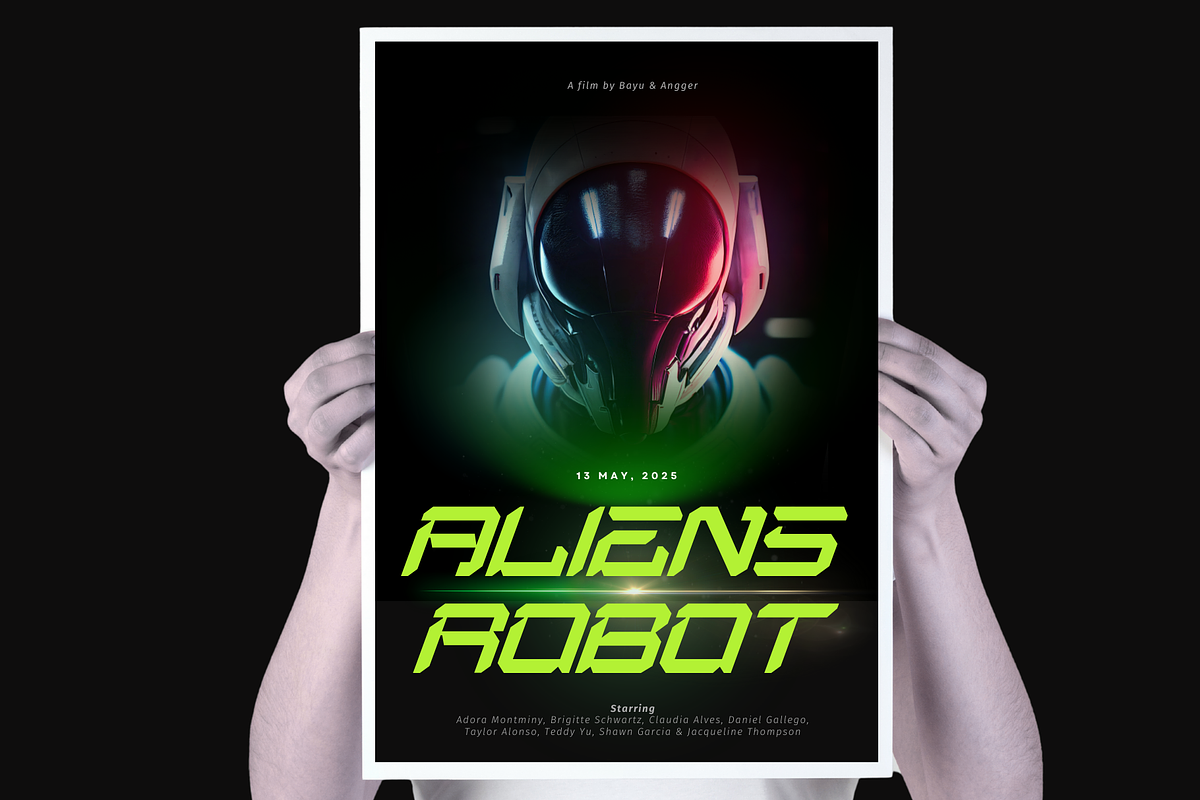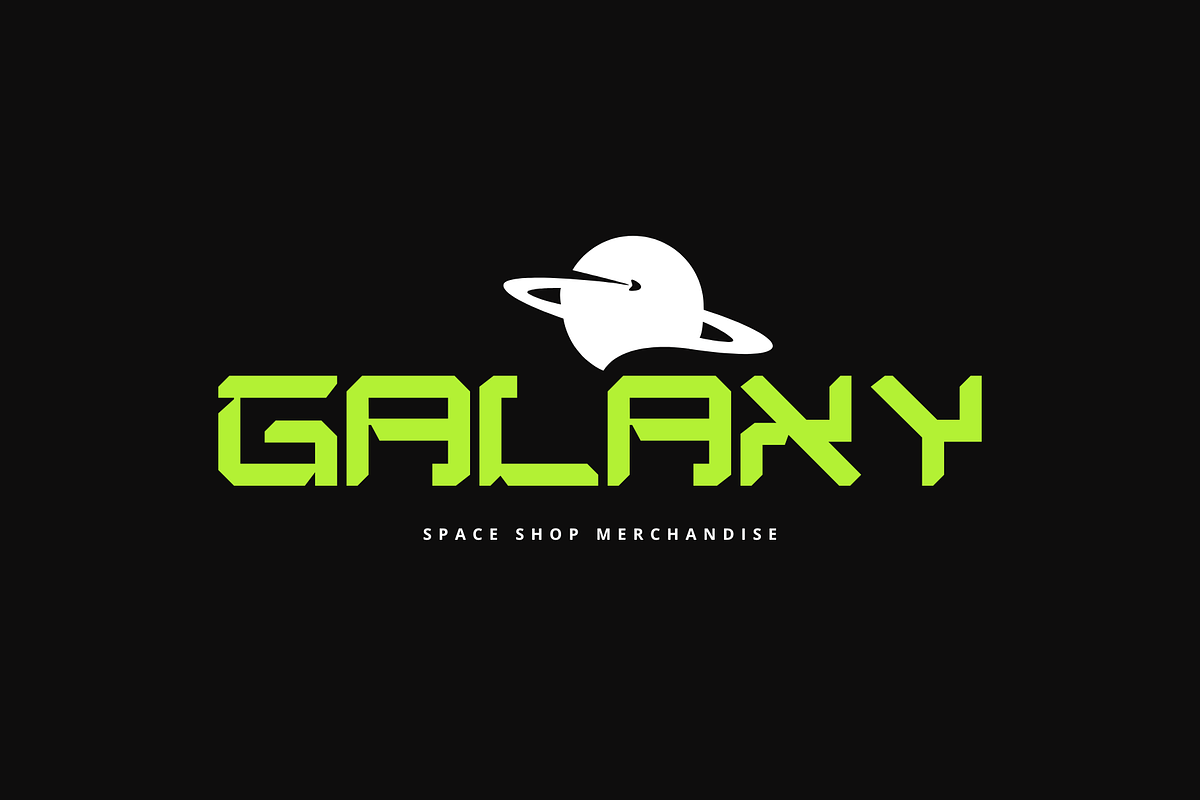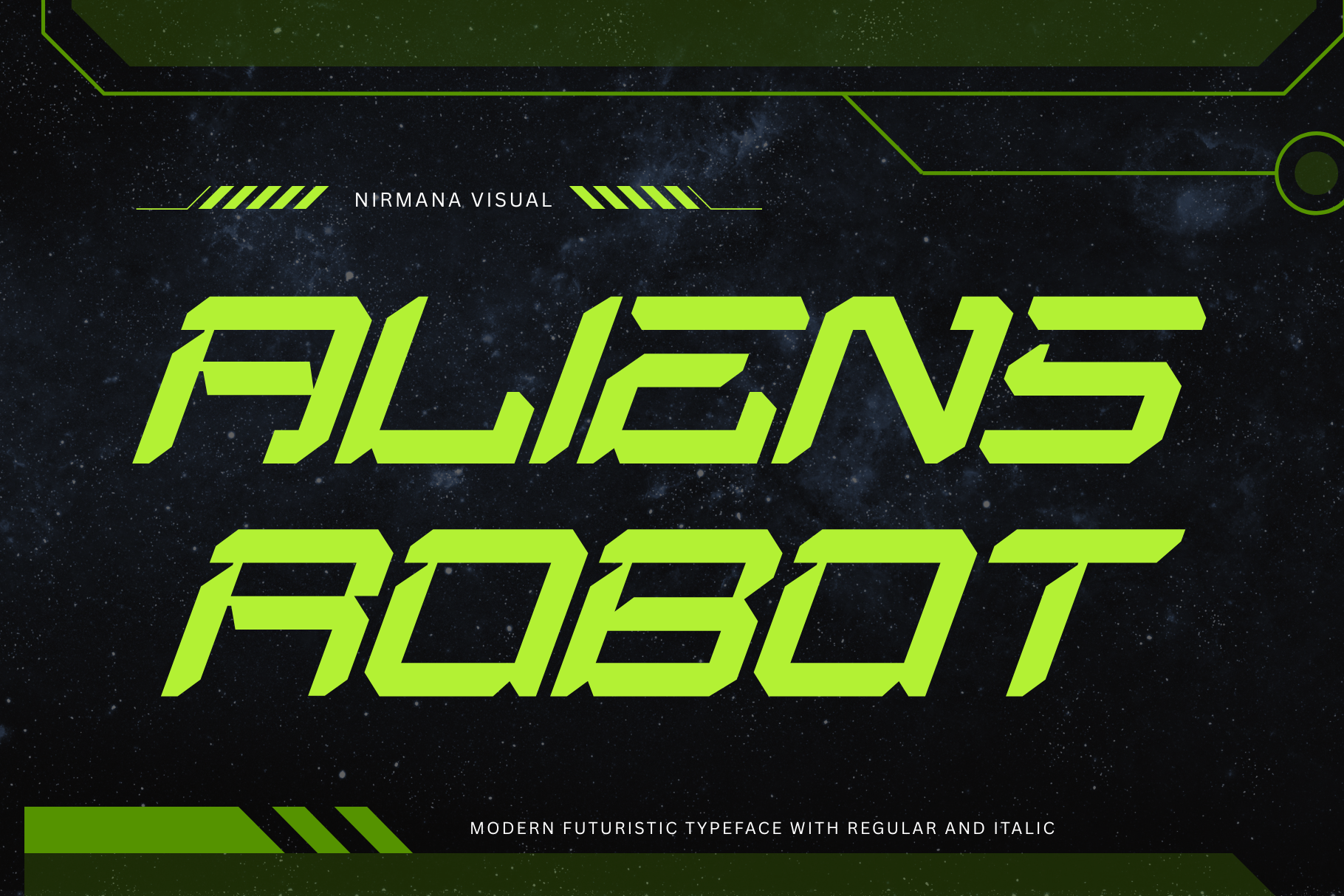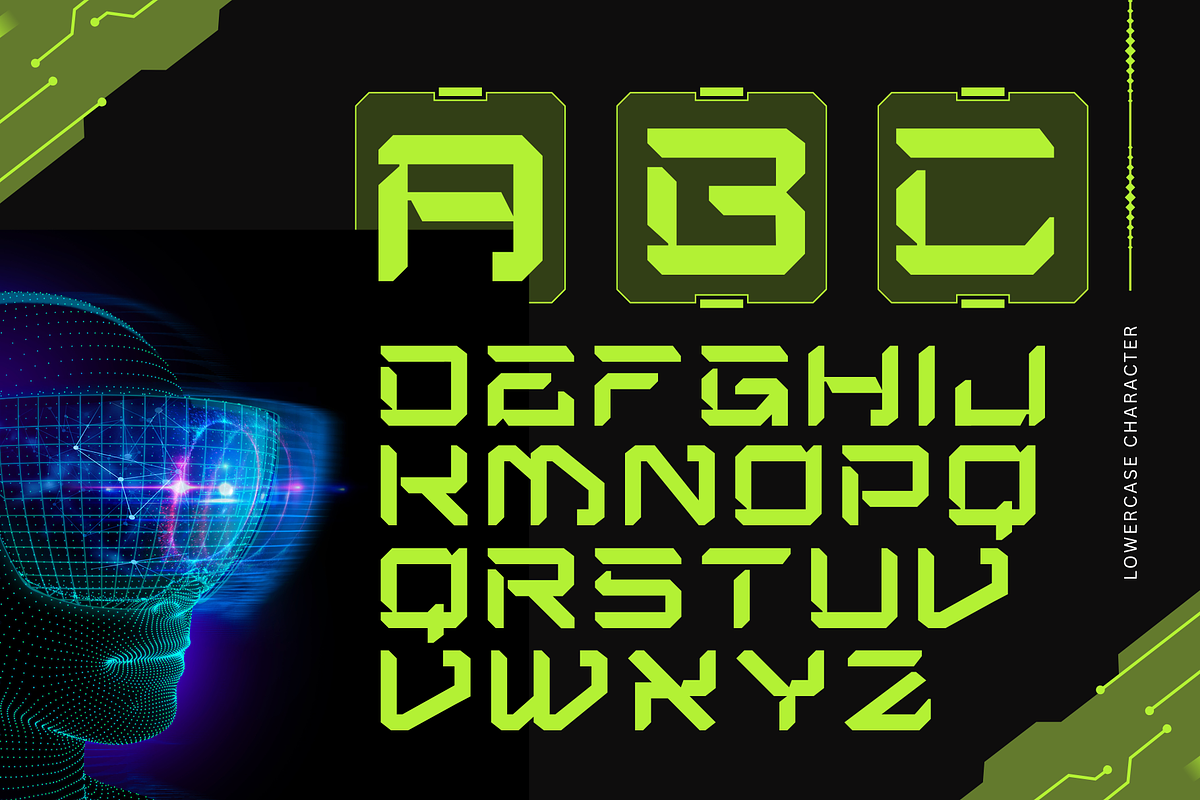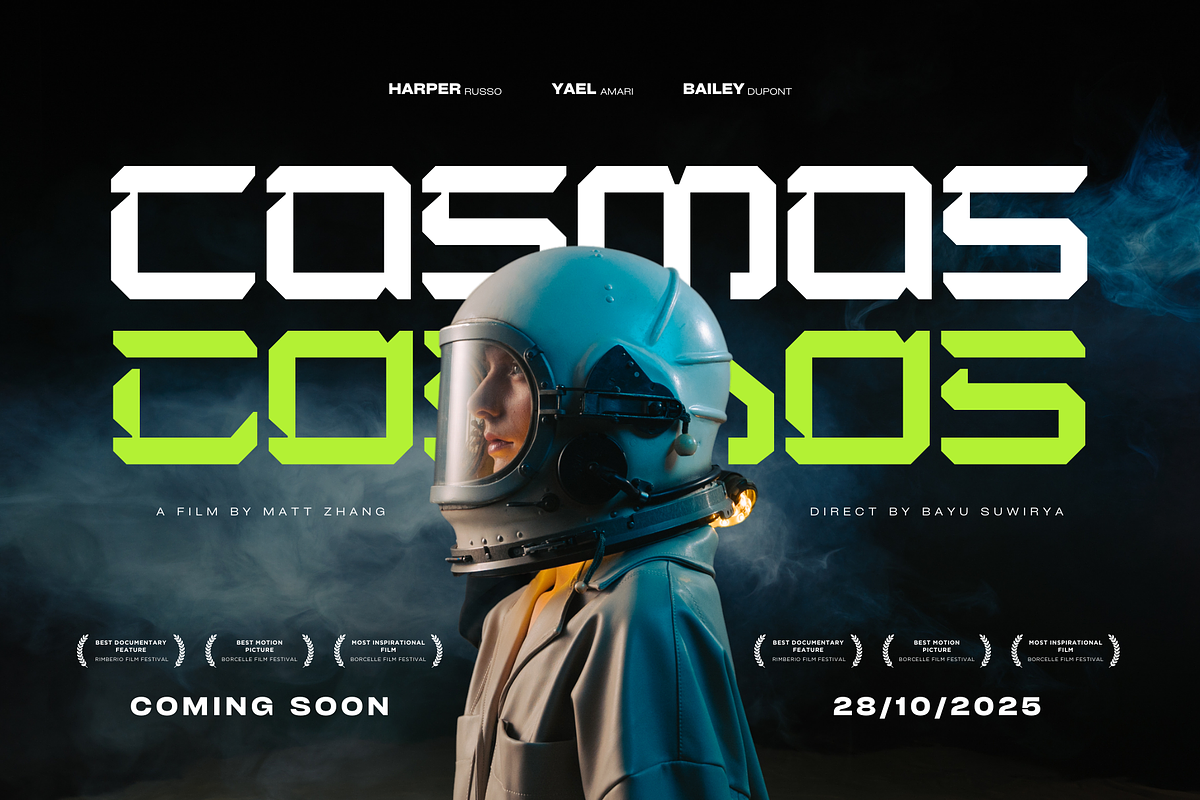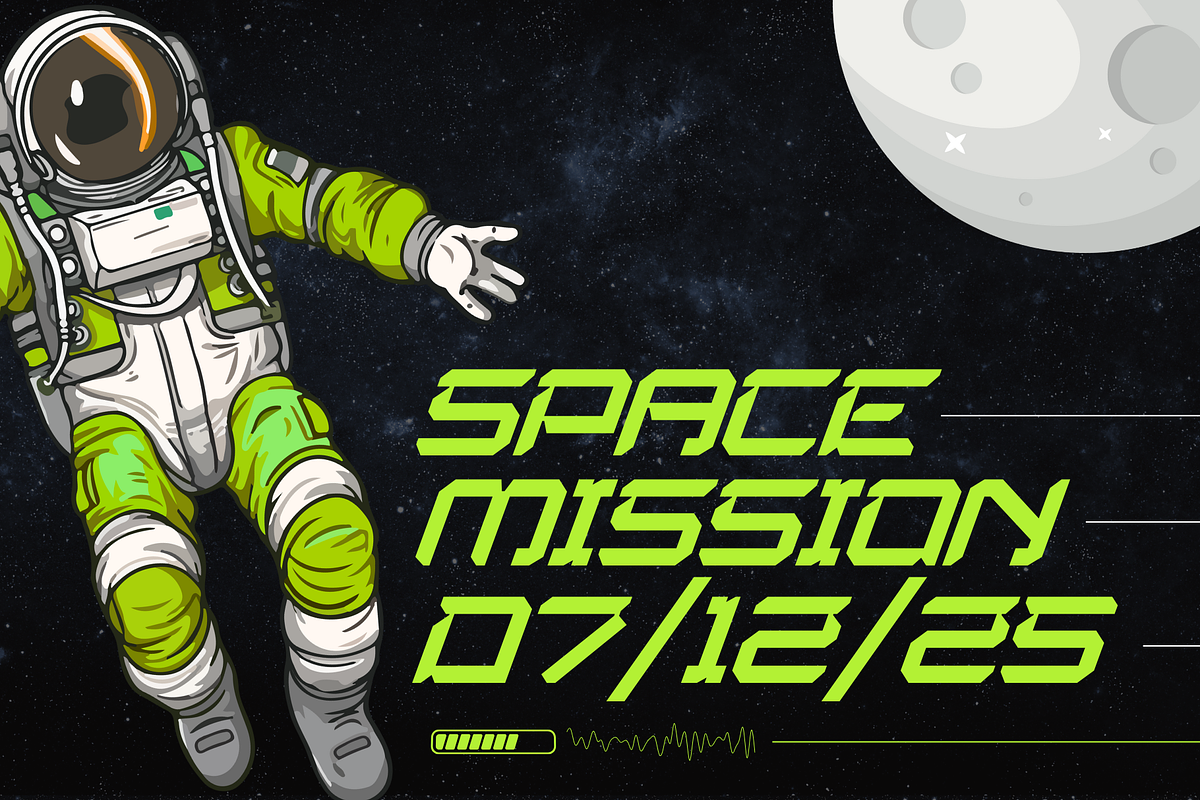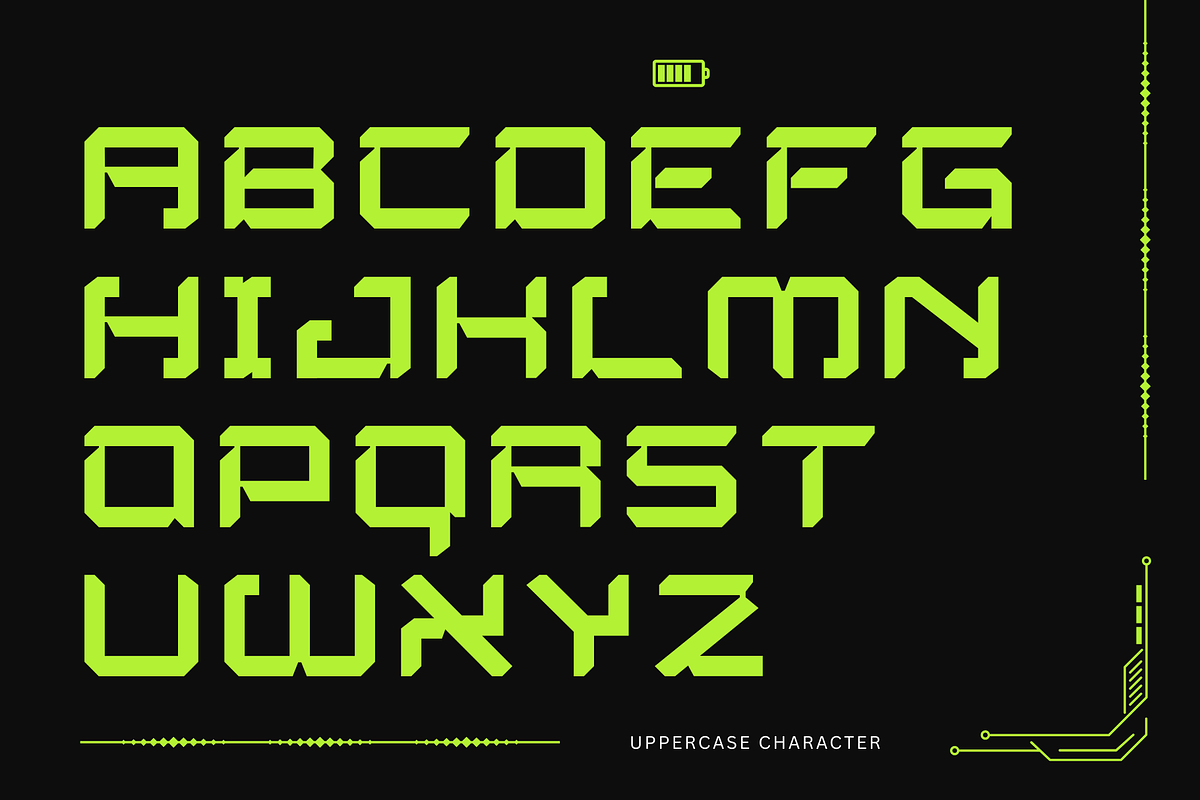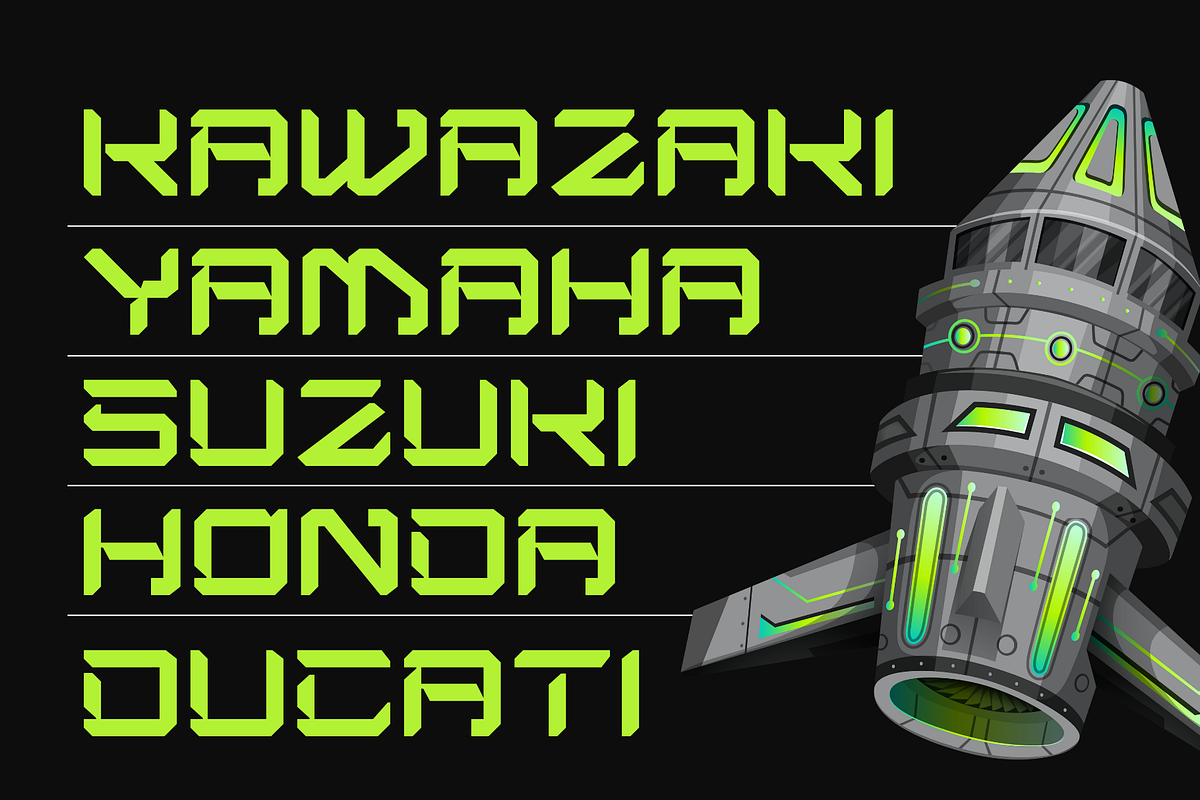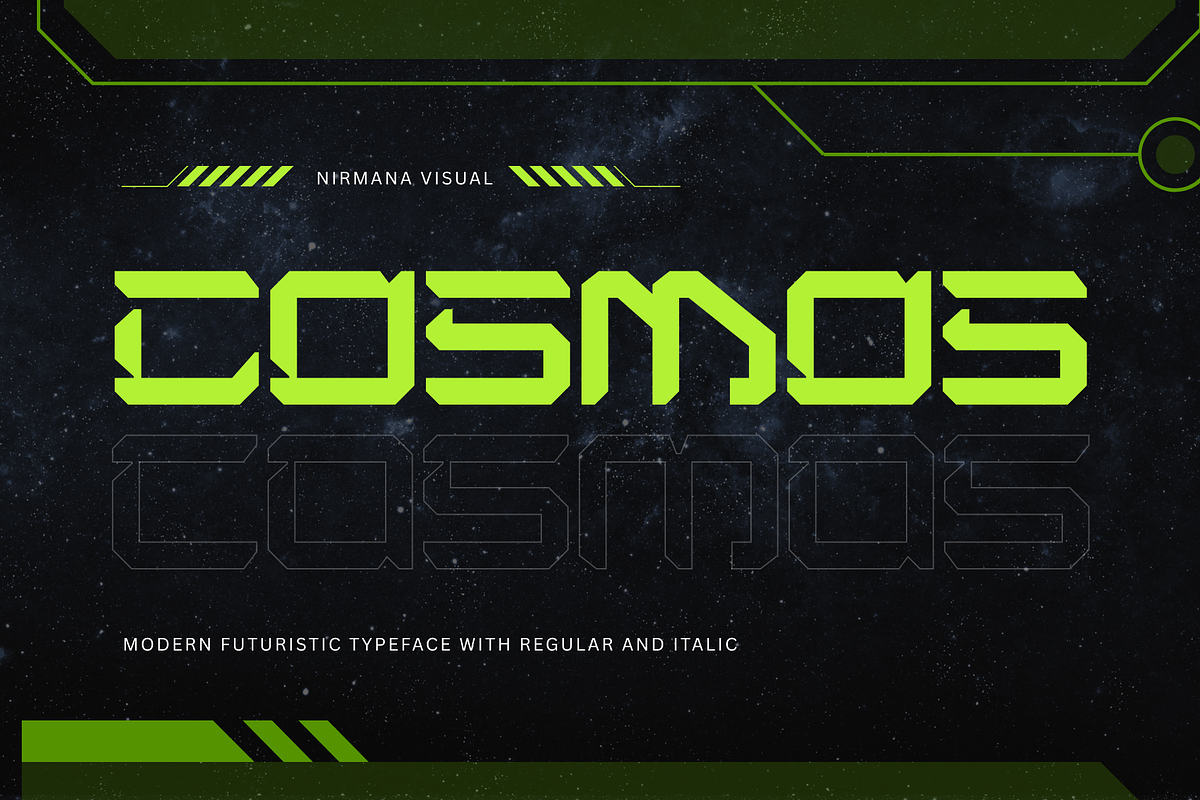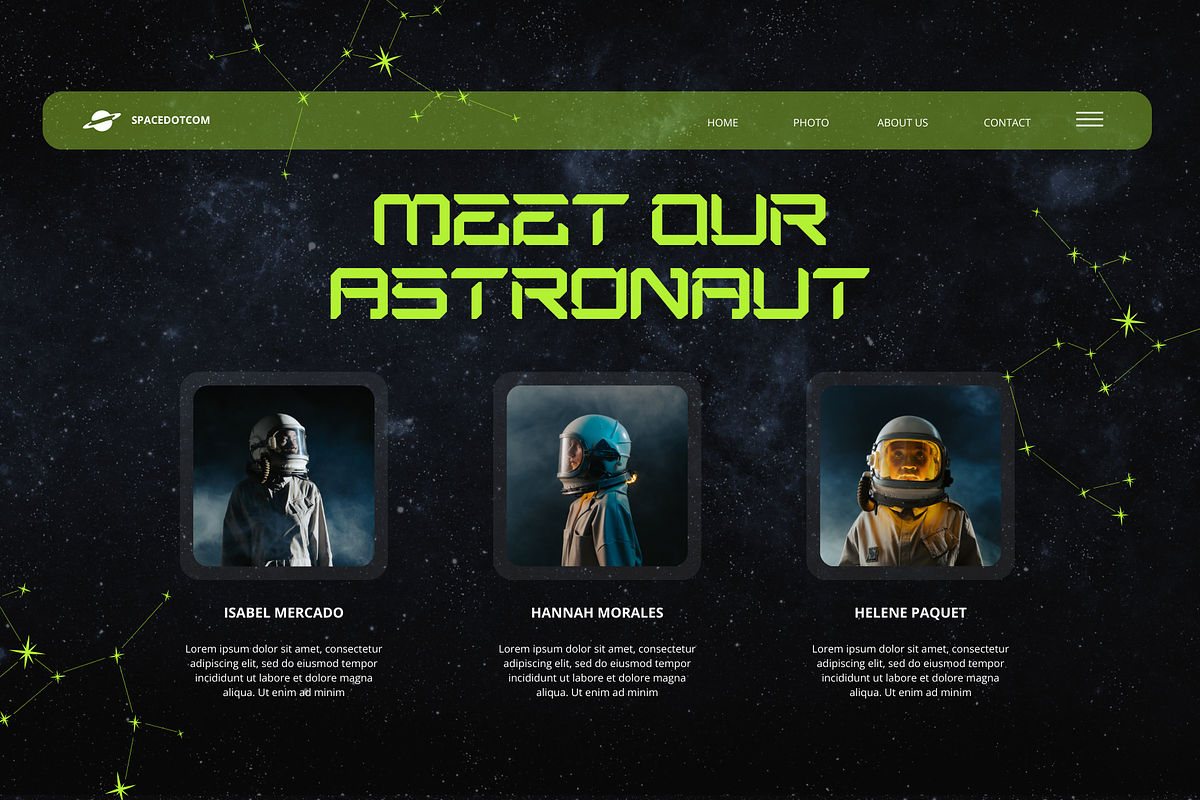
Aliens Robot - Modern Techno Font
Aliens Robot offers beautiful typographic harmony for a diversity of design projects, including logos & branding, social media posts, advertisements & product designs.